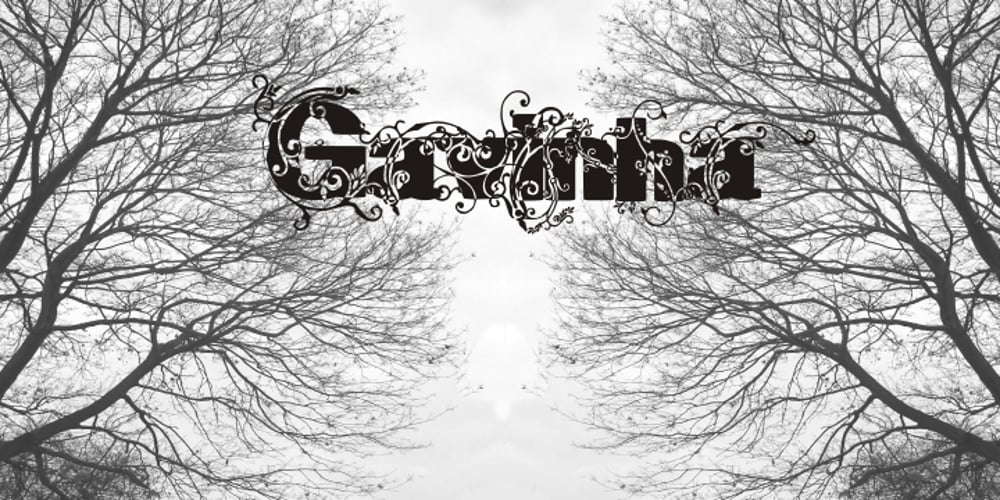
Gavinha Font Family was designed by Paulo W and published by Intellecta Design. Gavinha contains 1 styles and family package options. A highly decorative font inspired by victorian and flourish like designs. Great in header and large vintage style designs.